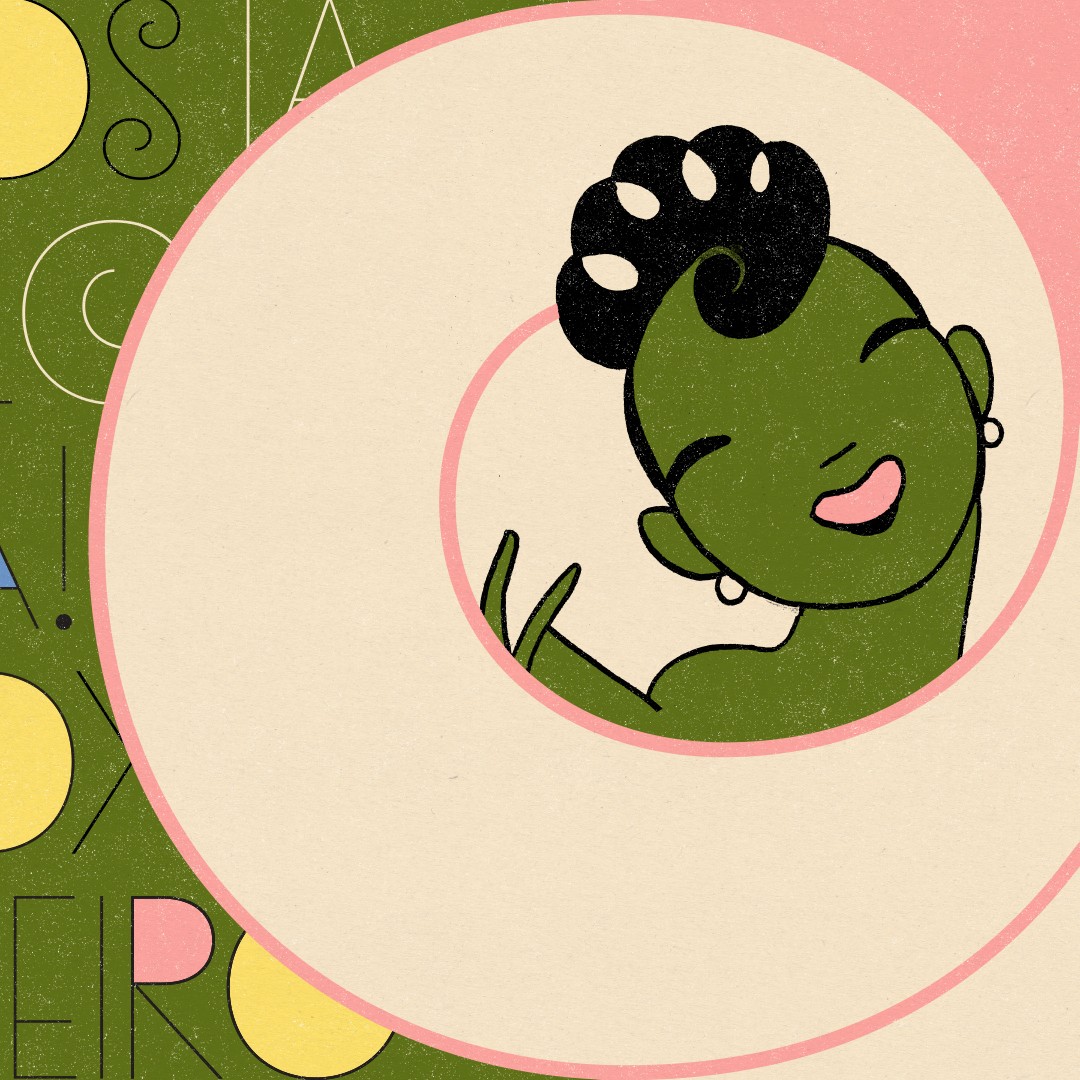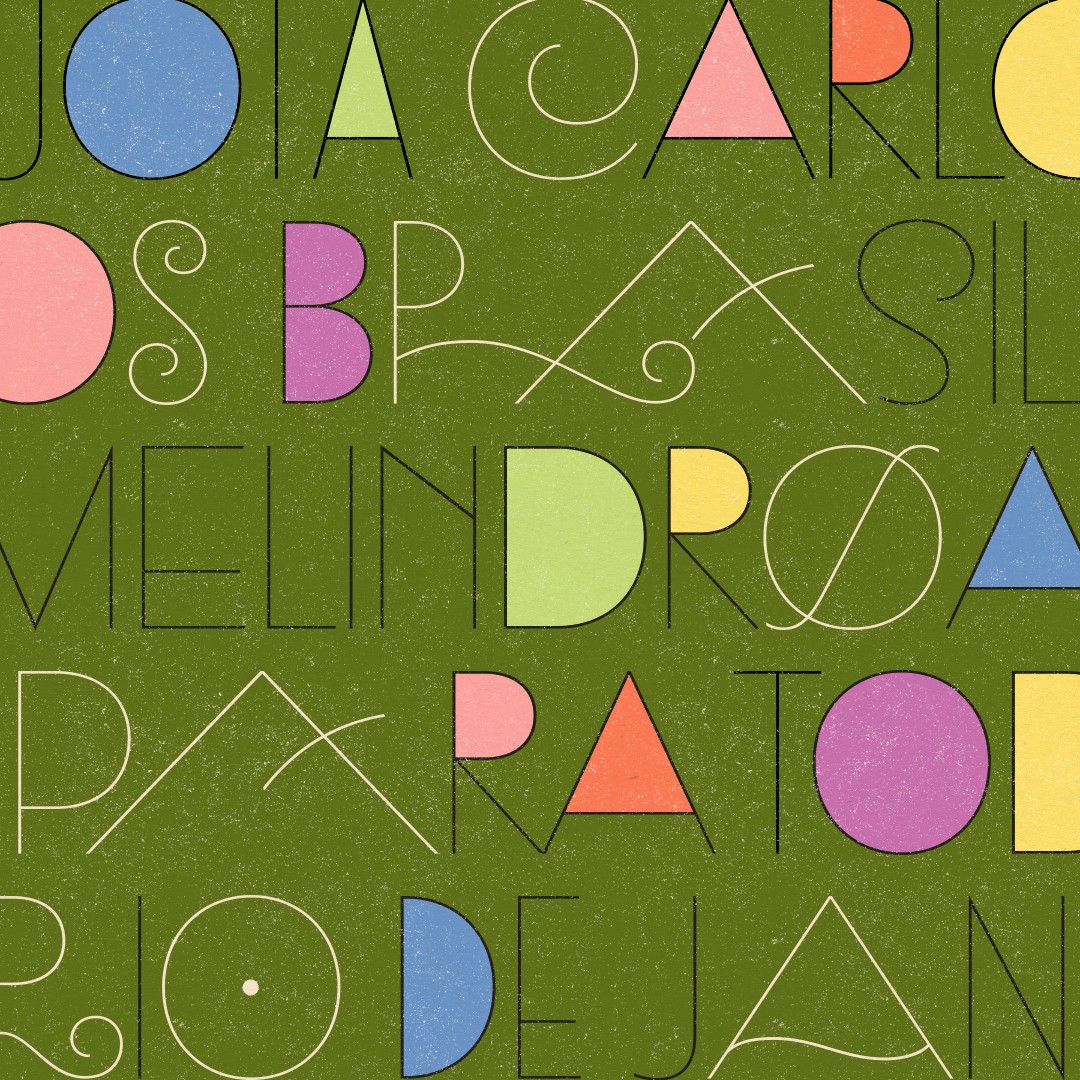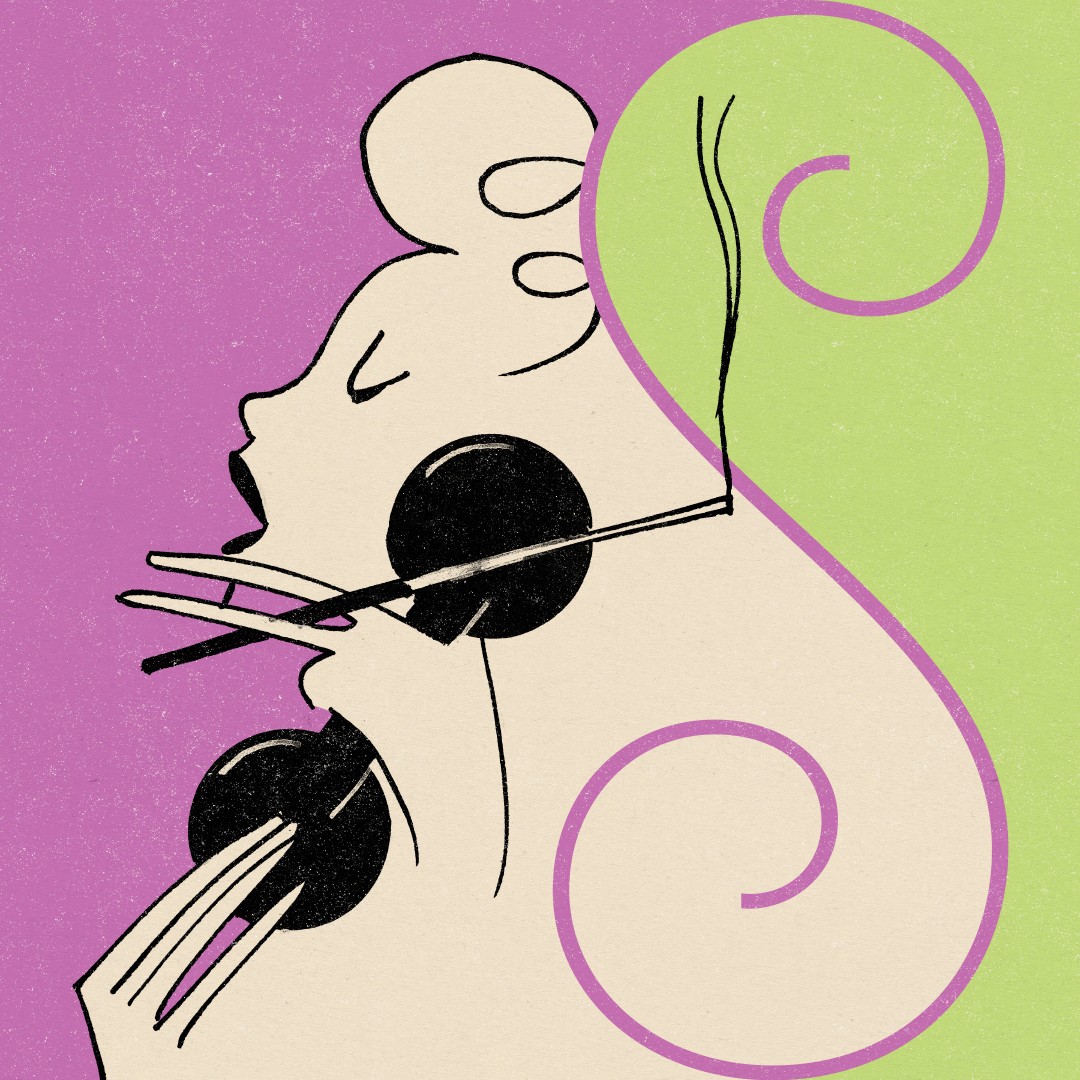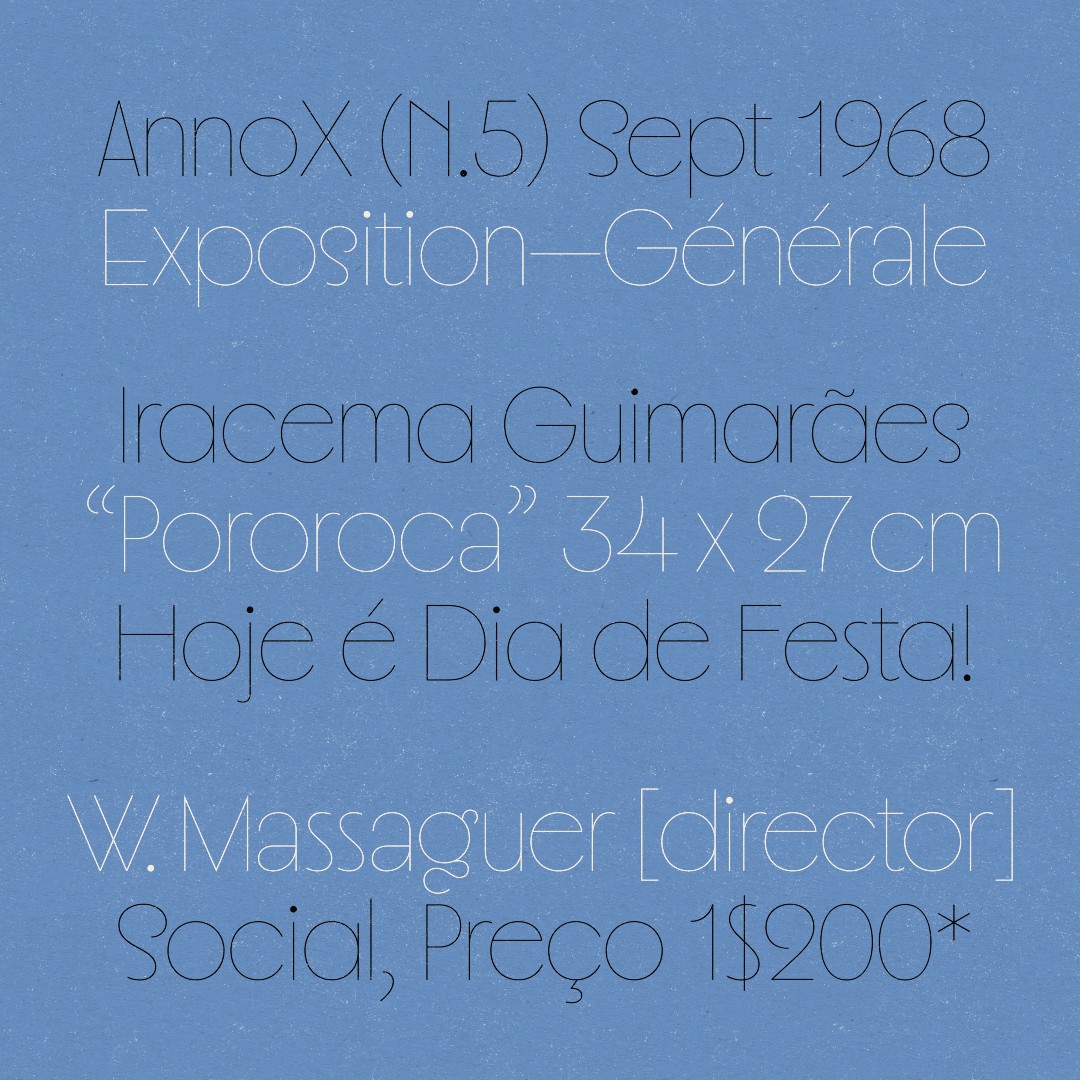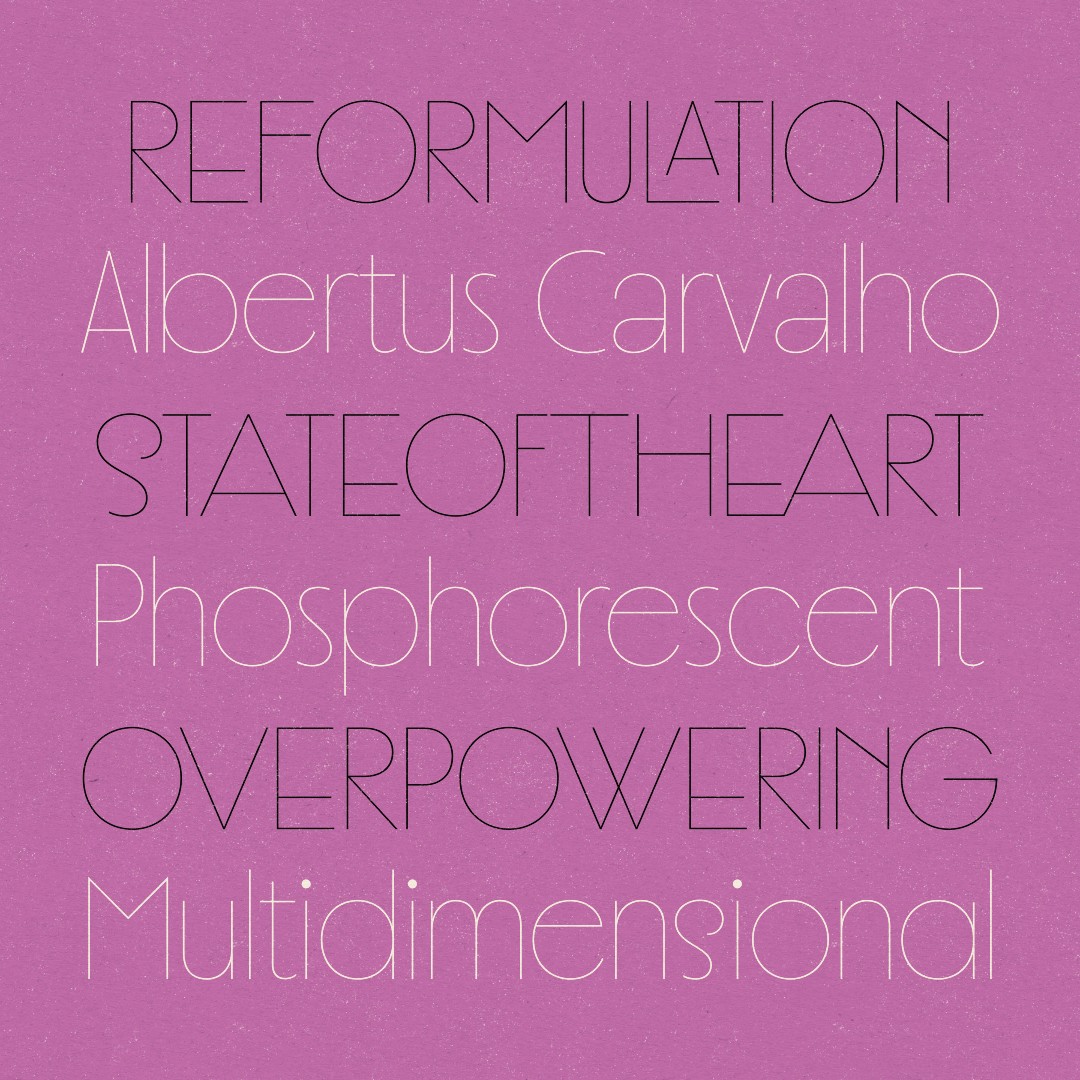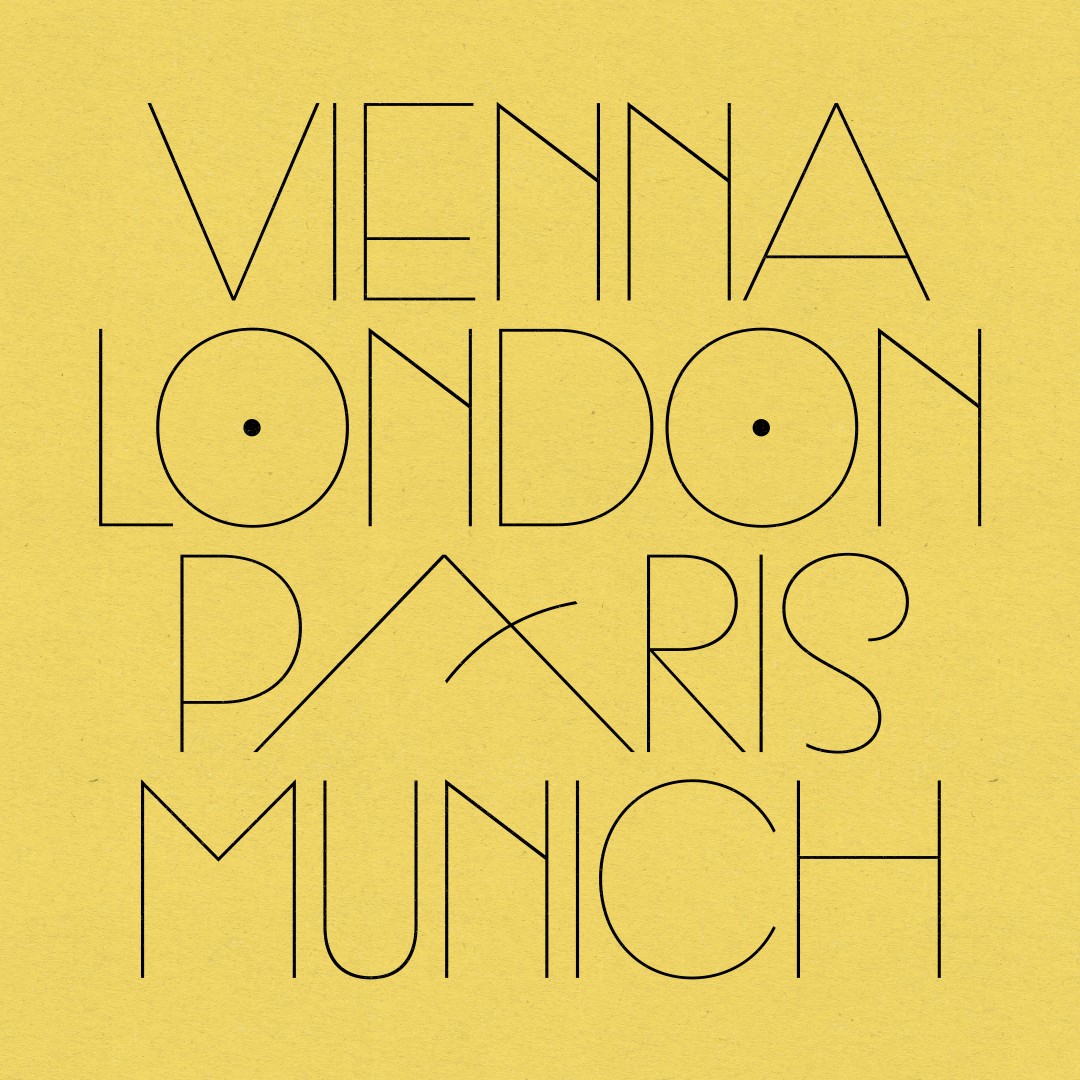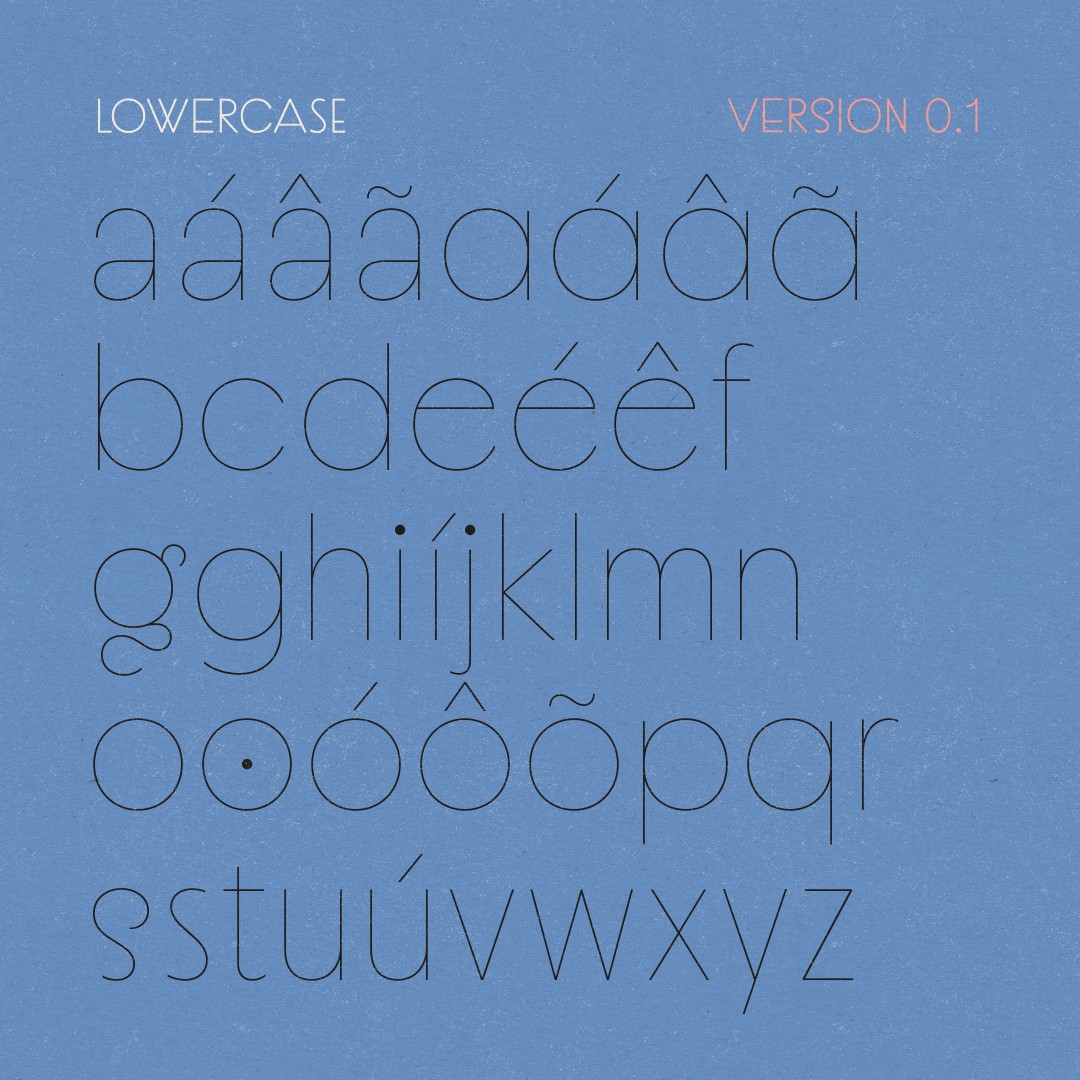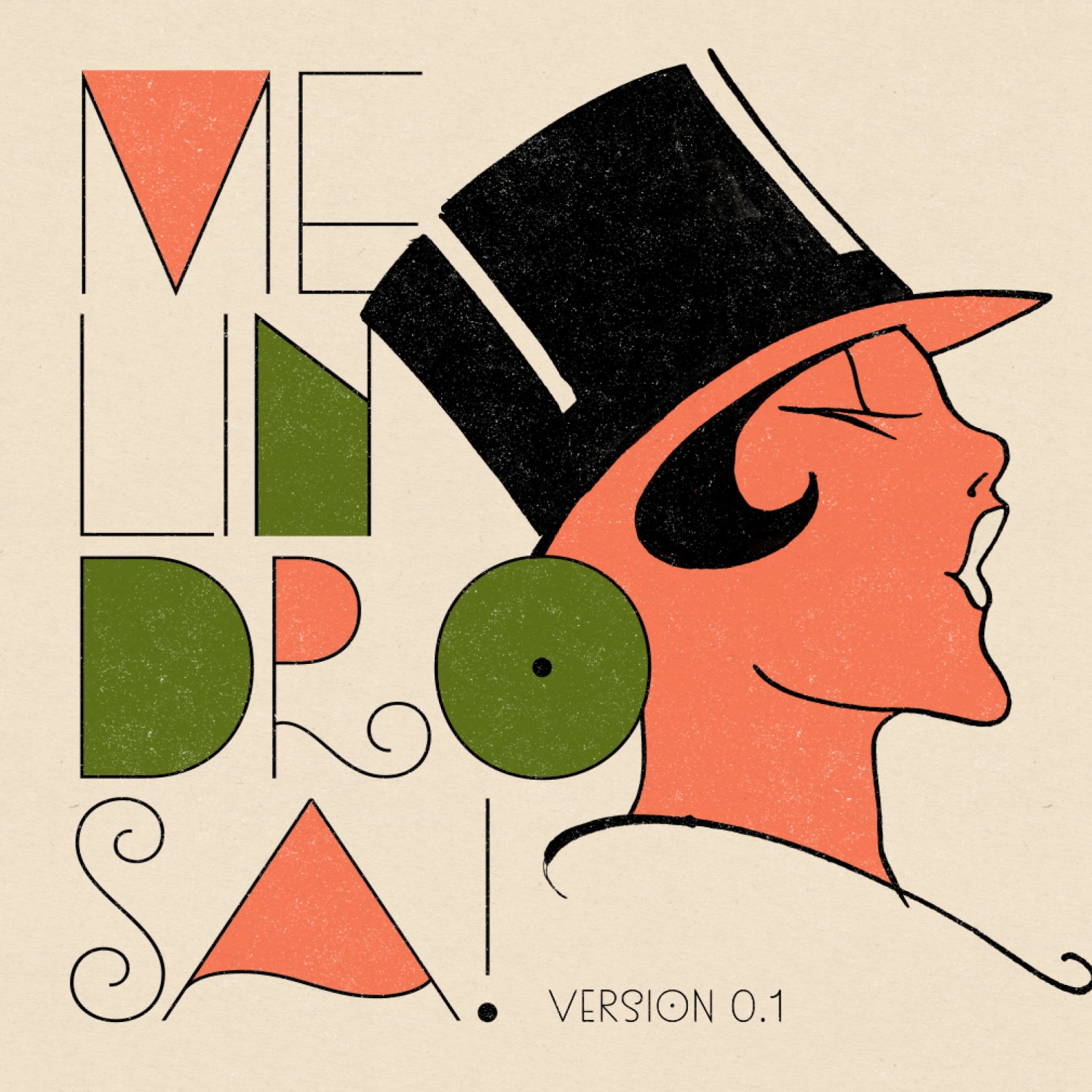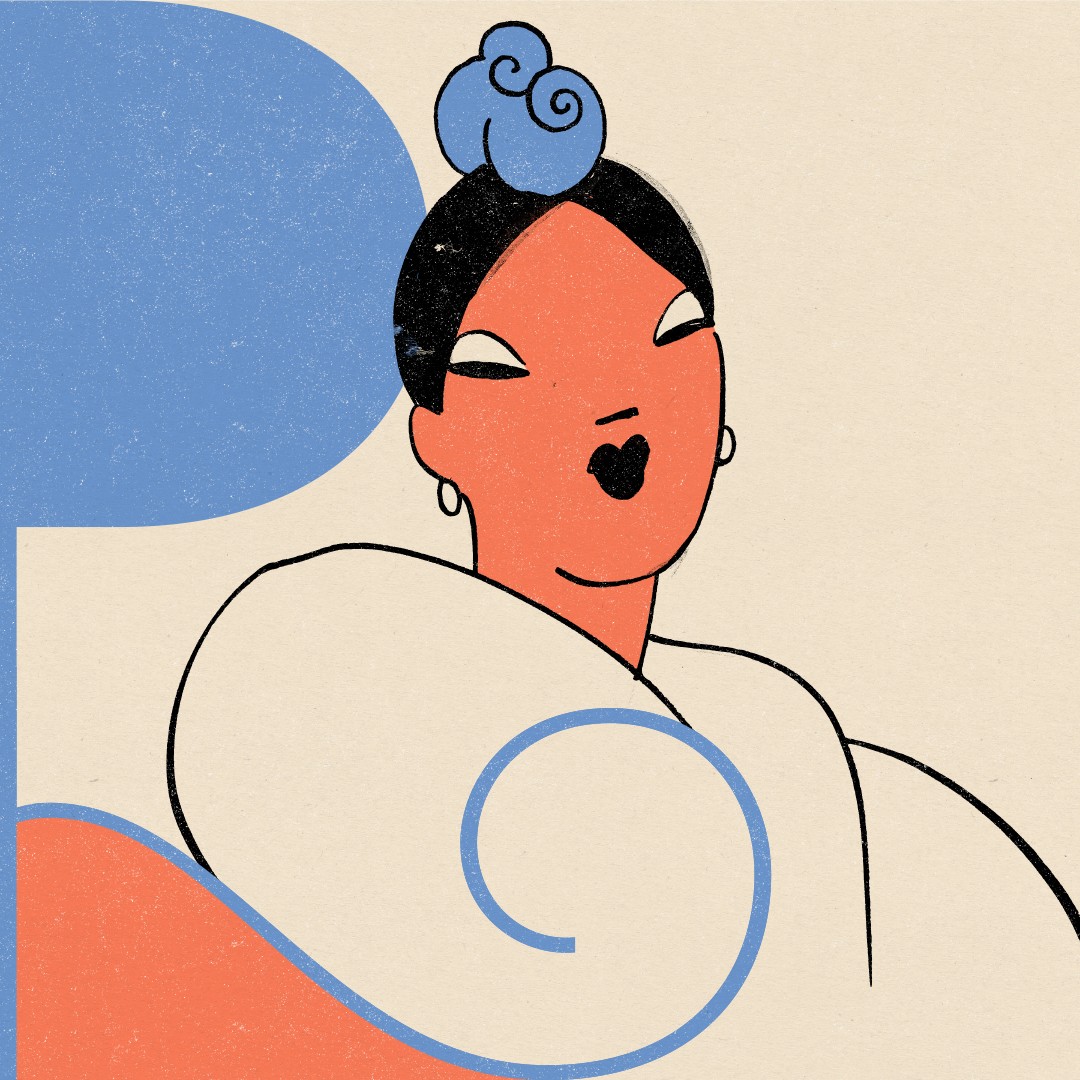
Melindrosa
BRAZILIAN ART DECO
Flappers were a subculture of young Western women in the 1920s who flaunted their disdain for what was then considered acceptable behavior.
Feminismo
J. Carlos, 1884–1950
José Carlos de Brito e Cunha, born in Rio de Janeiro, contributed to most prime magazines from the 1900s to the 1940s.
RIO DE JANEIRO
Para Todos, Fon Fon, O Malho!
A display typeface referencing the lettering work of Brazilian Art Deco master, J. Carlos. Born in Rio de Janeiro, José Carlos de Brito e Cunha (1884 — 1950) contributed to all prime publications from the 1900s to the late 1940s, including O Malho, Fon-Fon!, Para Todos, and O Cruzeiro, picturing a range of fictionalized characters and popular figures of the time—being “Melindrosa” a recurring persona who represented the feminist movement in the 1920s.